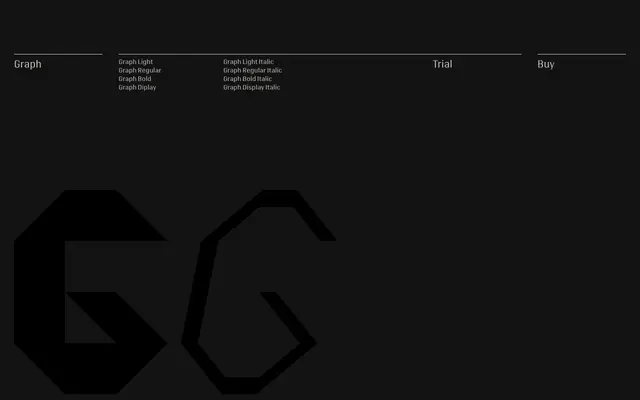
Graph
The Letters · Mark Gowing · 2017
A strictly angular geometric sans built entirely on perpendicular and 45-degree angles, with no curves, designed by Mark Gowing for his own poster design monograph.
Originally sketched on graph paper in 1991 and revised for publication in 2017, Graph is constructed from a metric grid using only perpendicular and 45-degree angles — every stroke is straight, every curve absent. Stroke contrast emerges not from calligraphic tradition but from the compression of angled strokes bisecting the grid. The eight-style family covers three weights with italics and a dedicated display cut, applying more classical sans-serif proportions than the original sketch to keep it legible at text sizes.
Graph is built entirely from perpendicular and 45-degree angles on a metric grid, with no curves and stroke contrast derived solely from angled strokes — a rigidly geometric, angular sans-serif with display and text cuts.